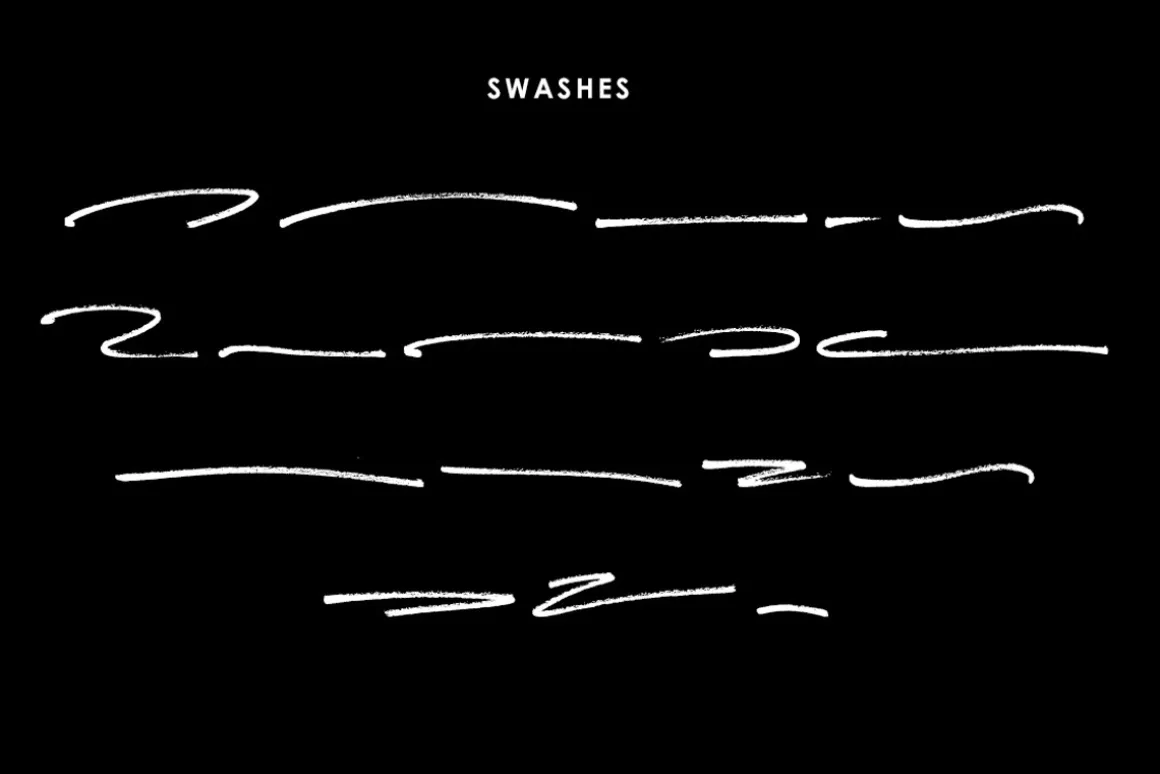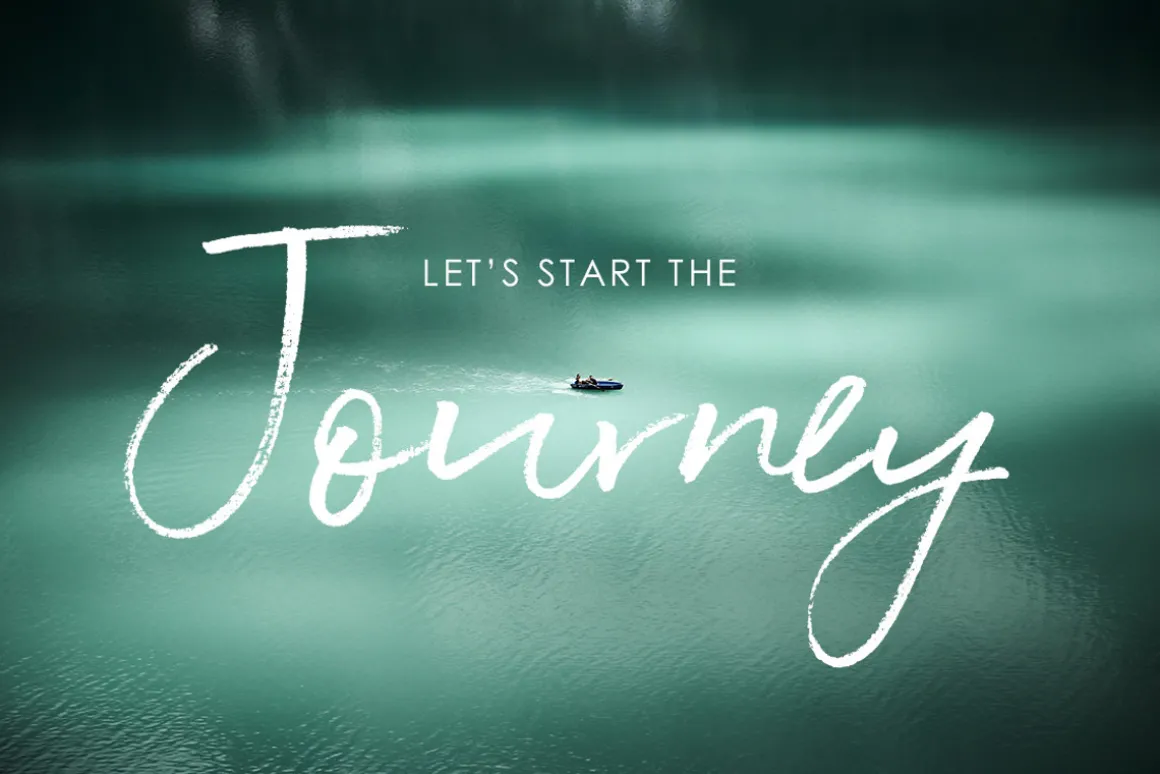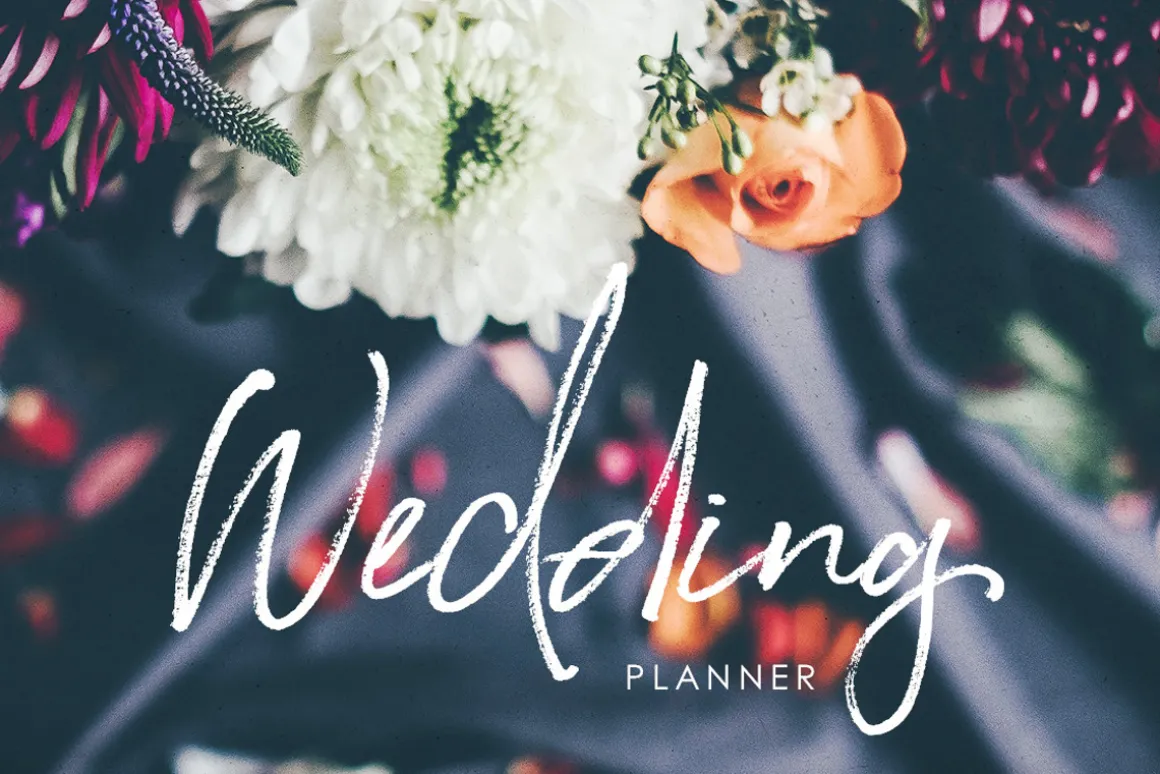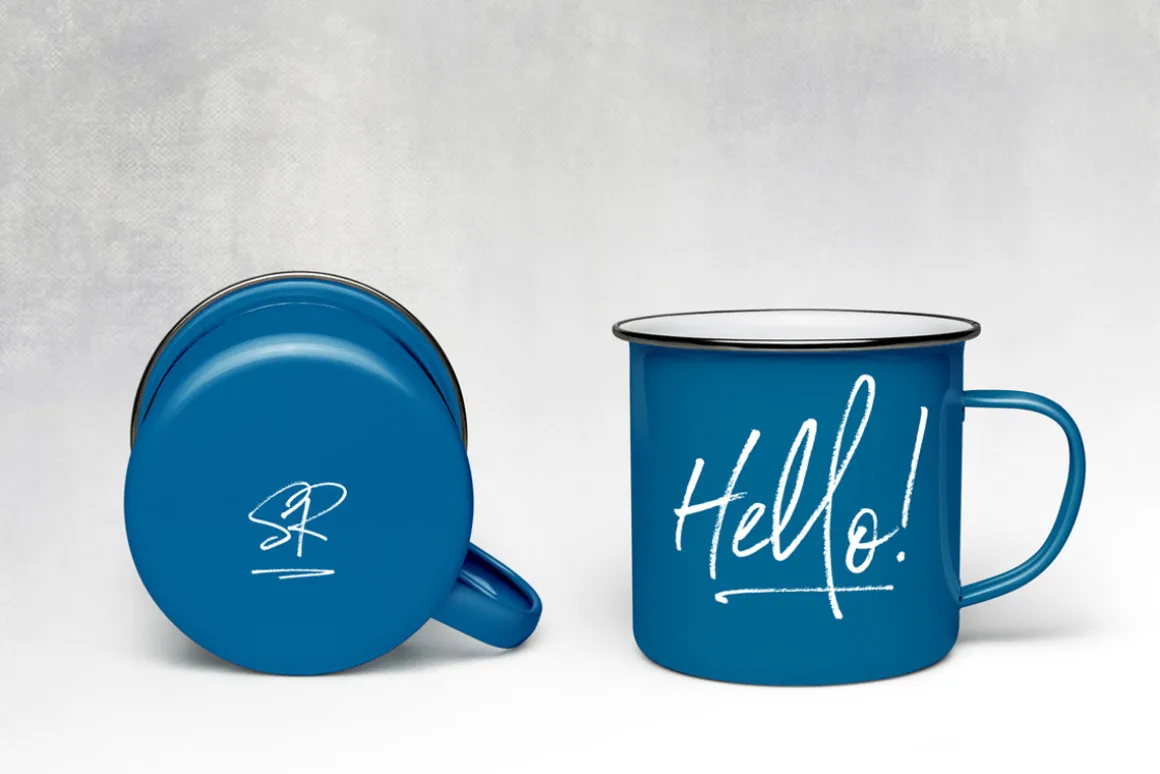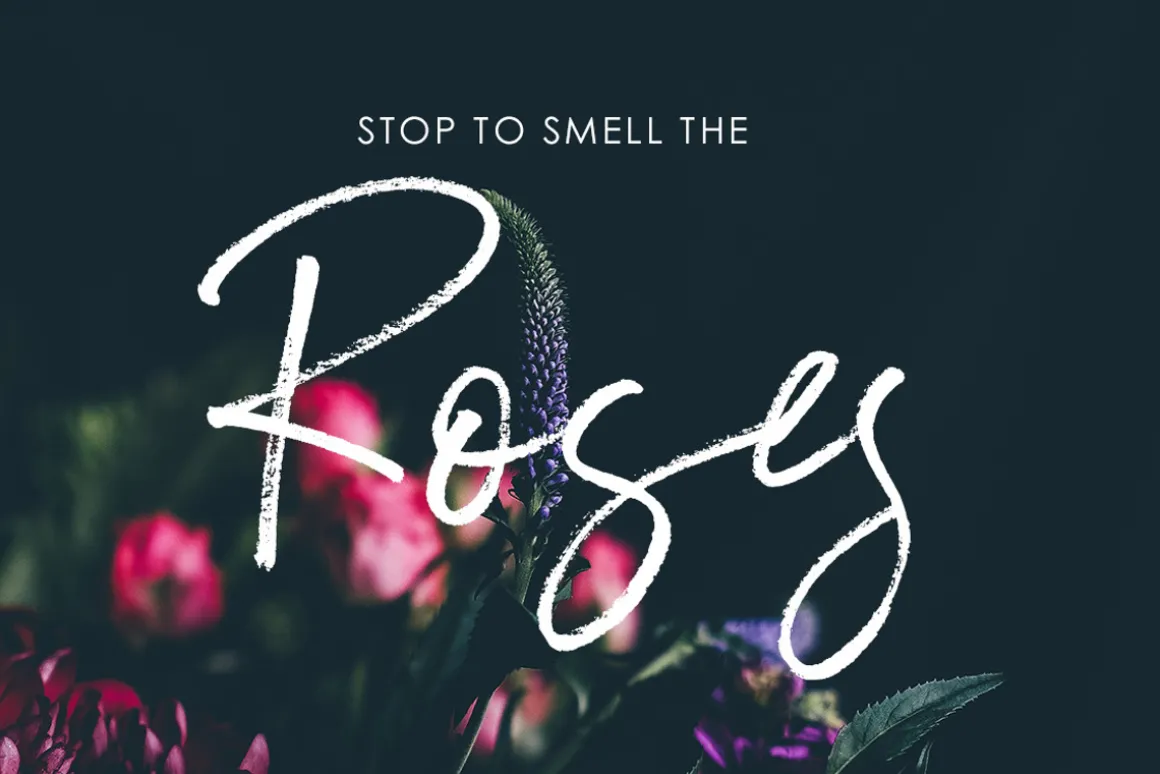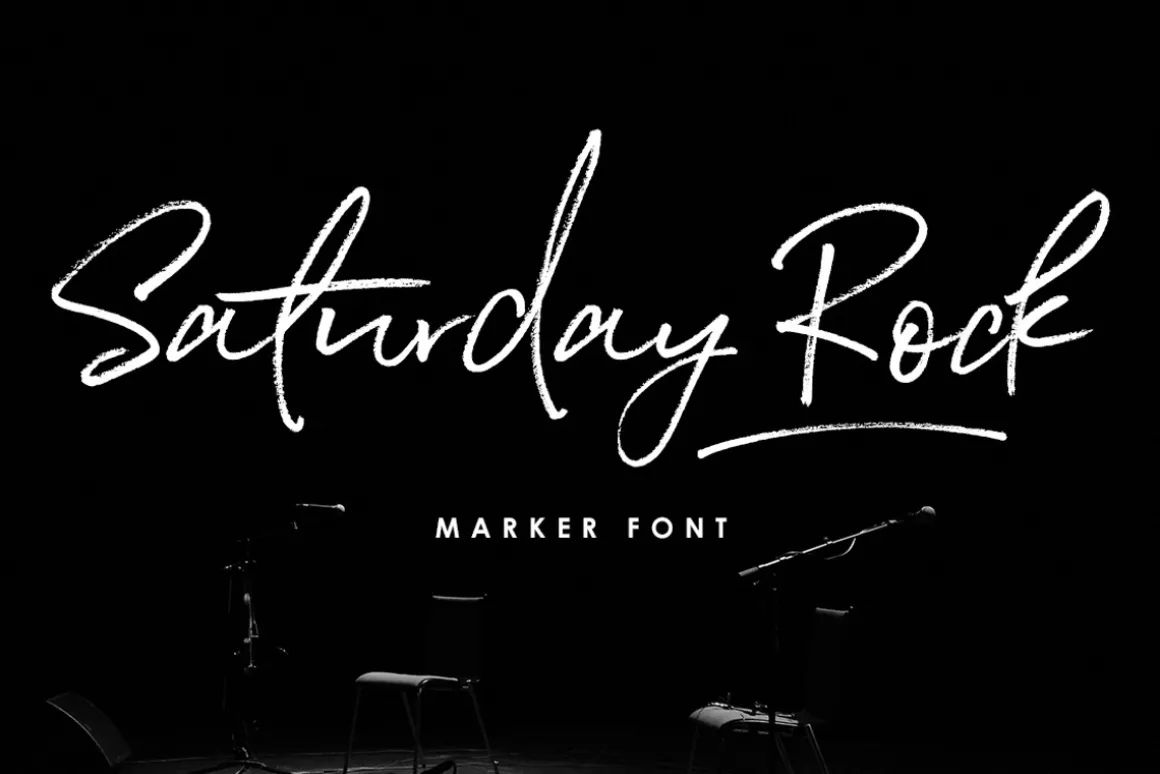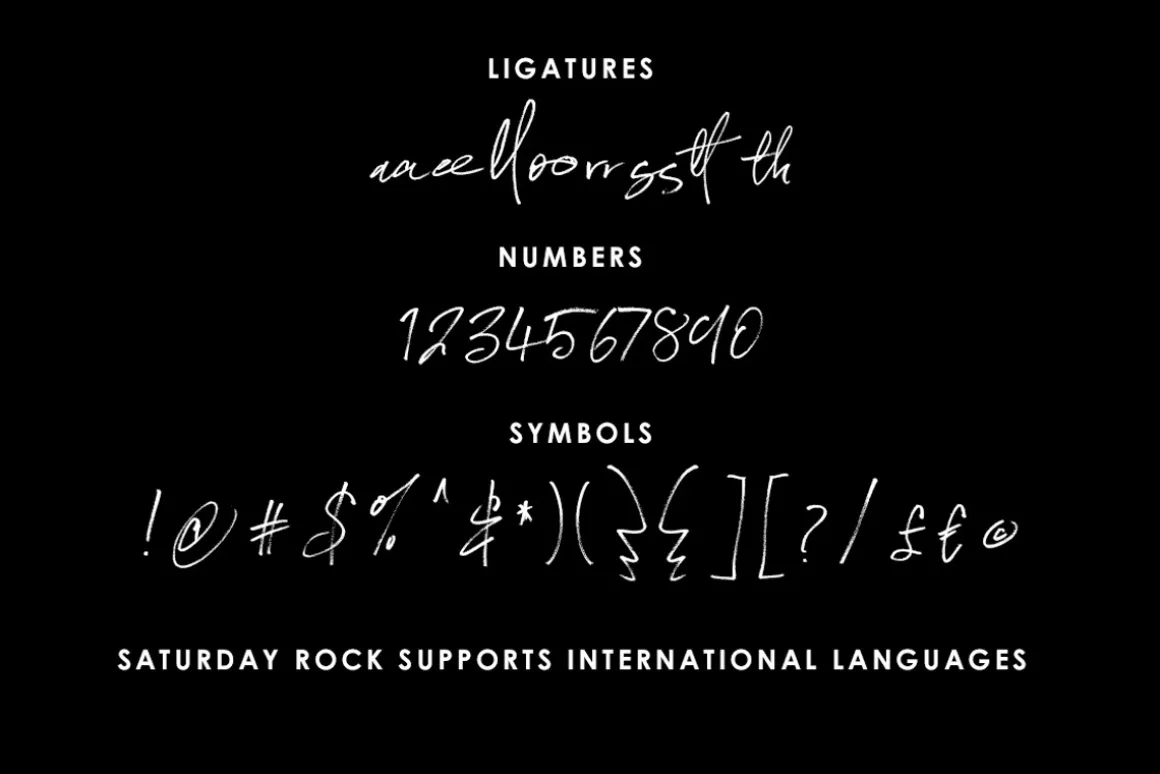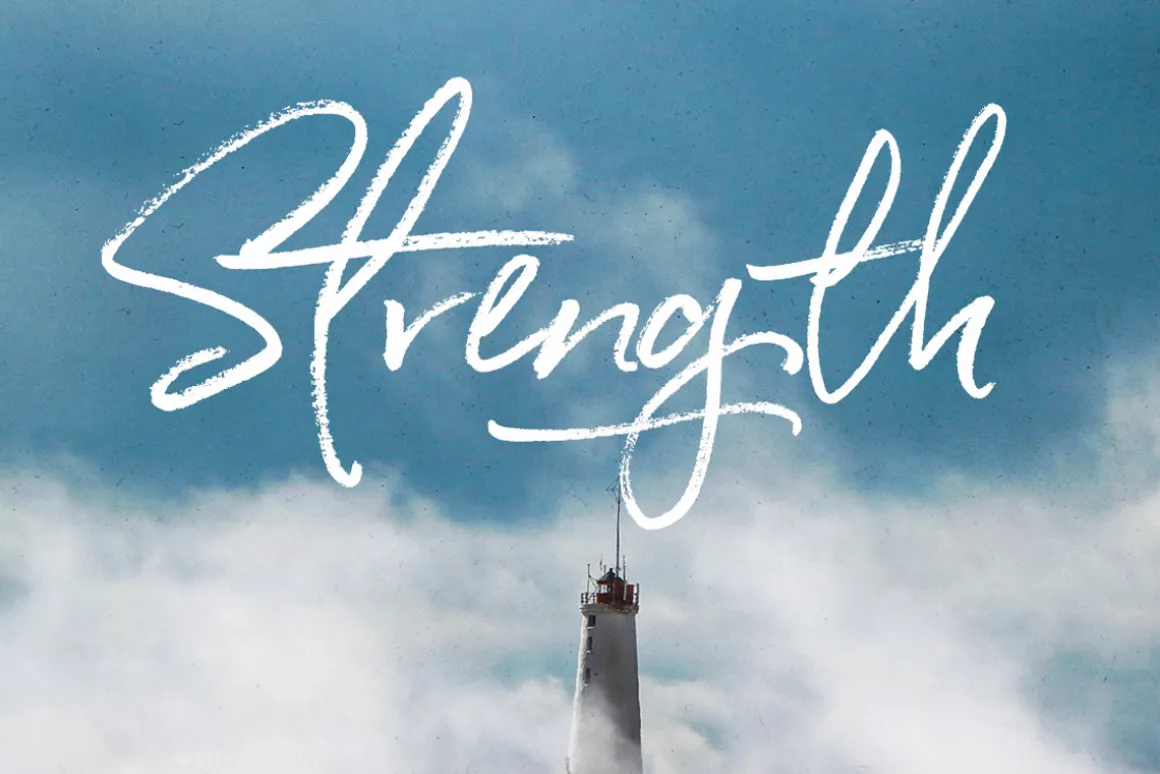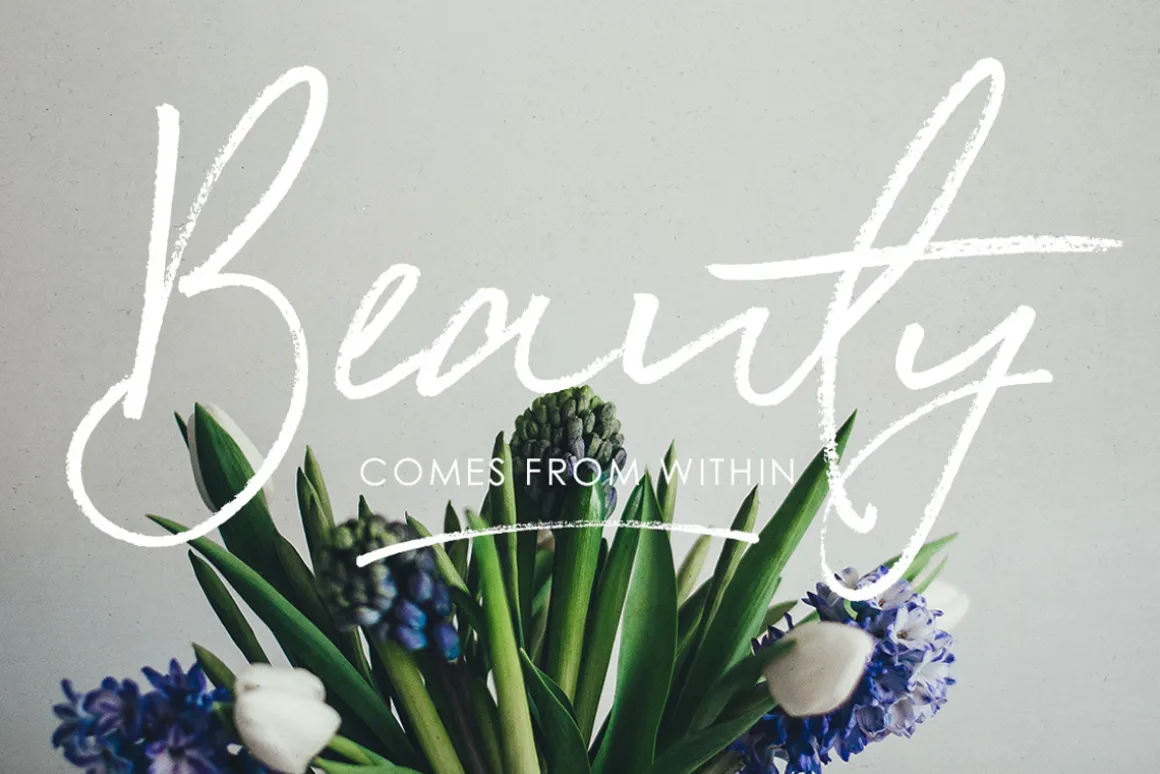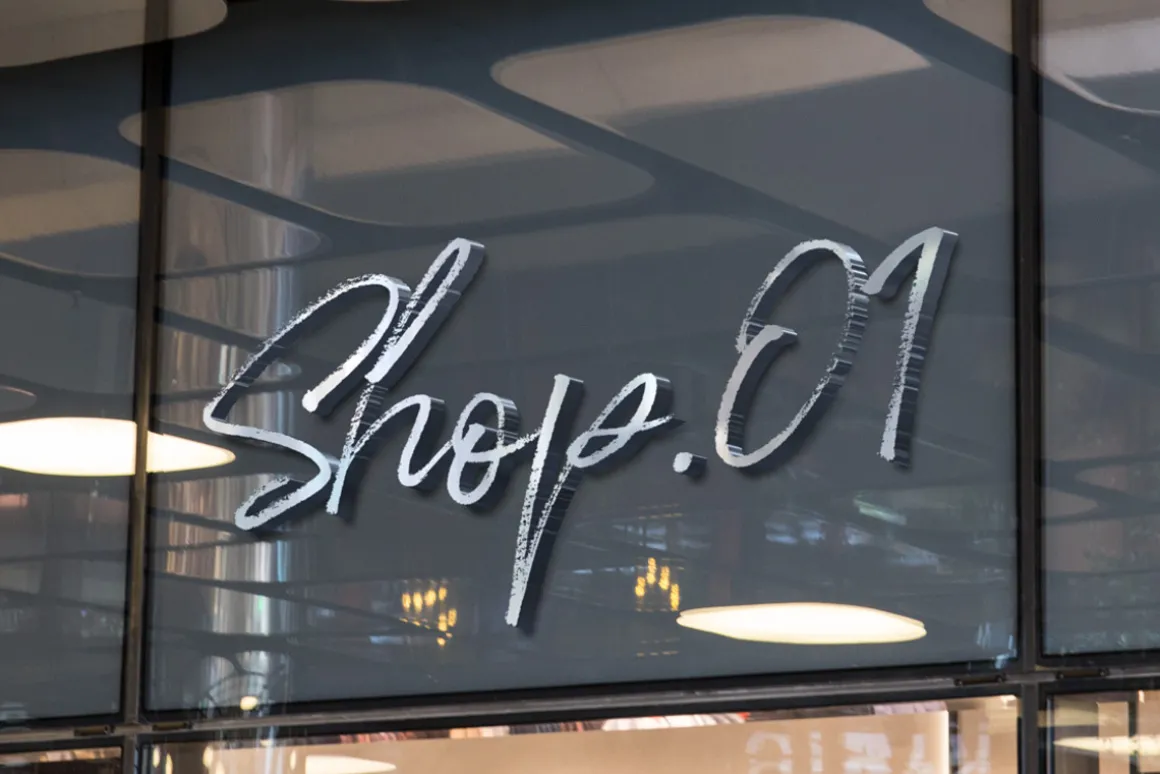
This font has so much character, charm and texture.A true hand drawn marker script, with 2 sets of uppercase and lowercase, plus double ligatures and swashes.
Open type features automatically change the end letter of each word to the alternate letter to give a genuine hand written look and style.
Saturday Rock supports international characters.